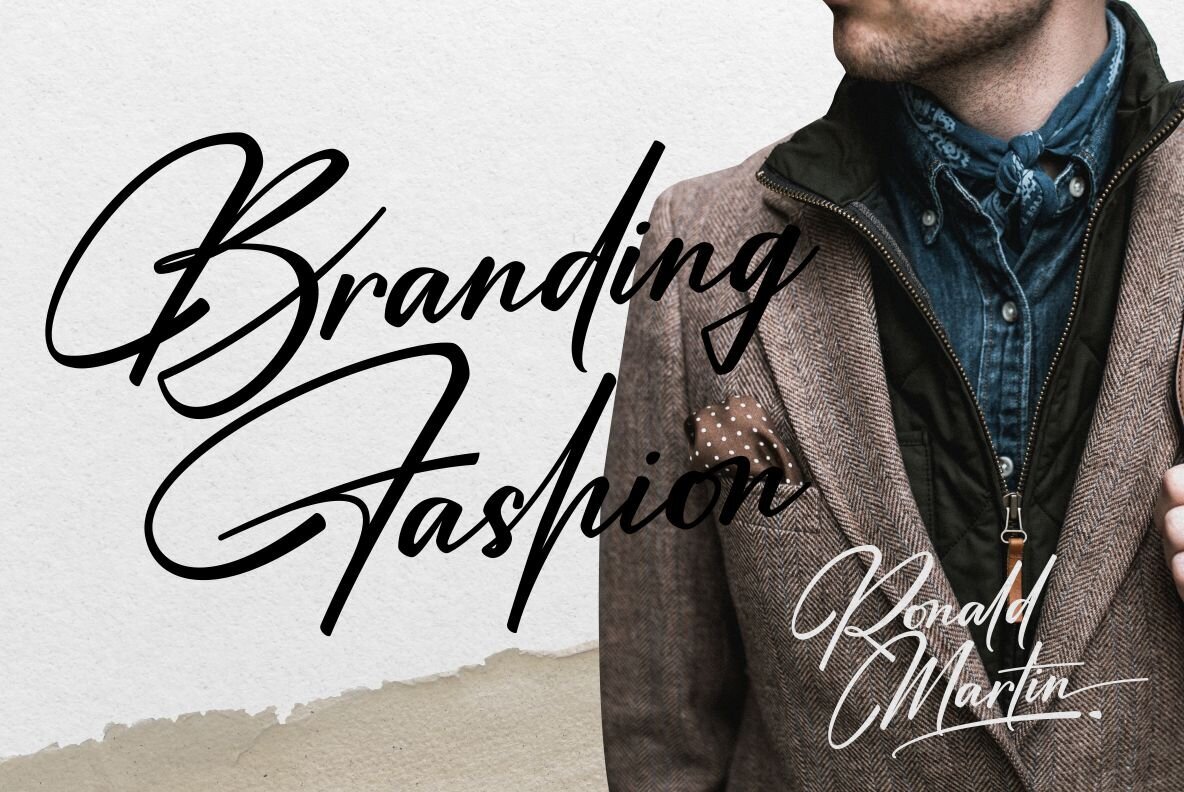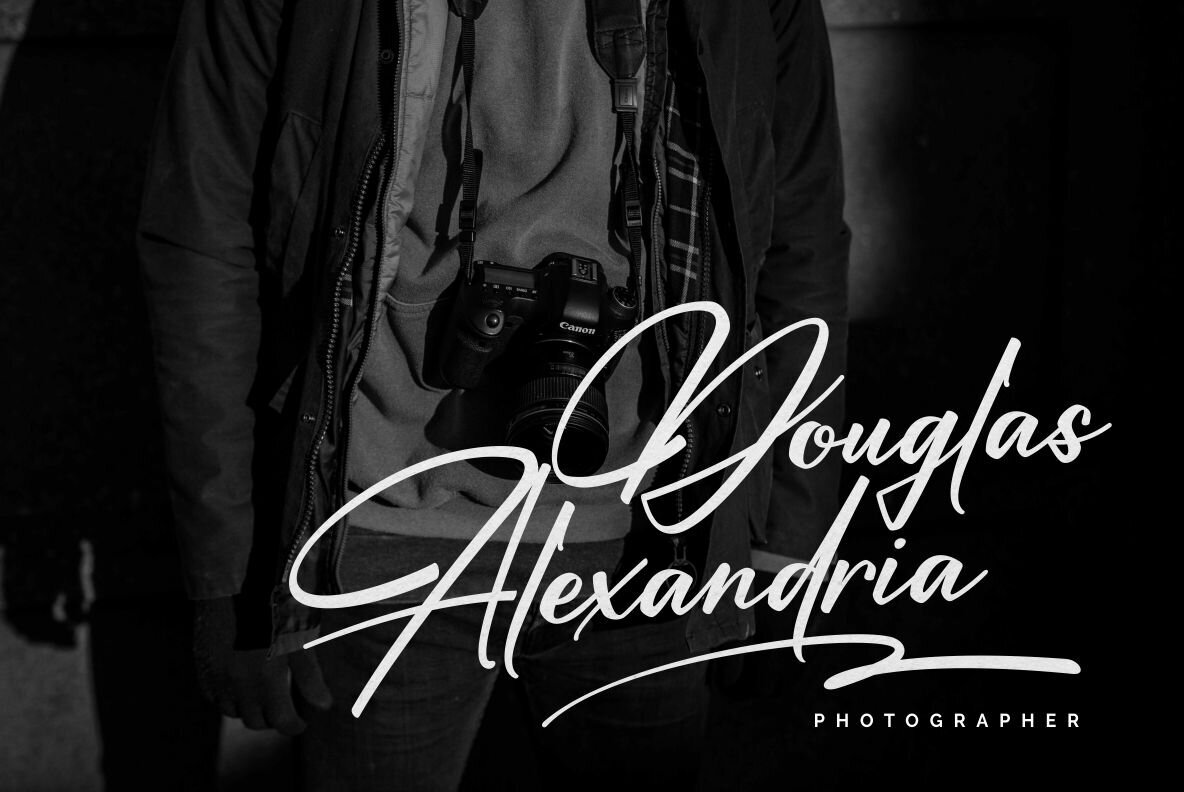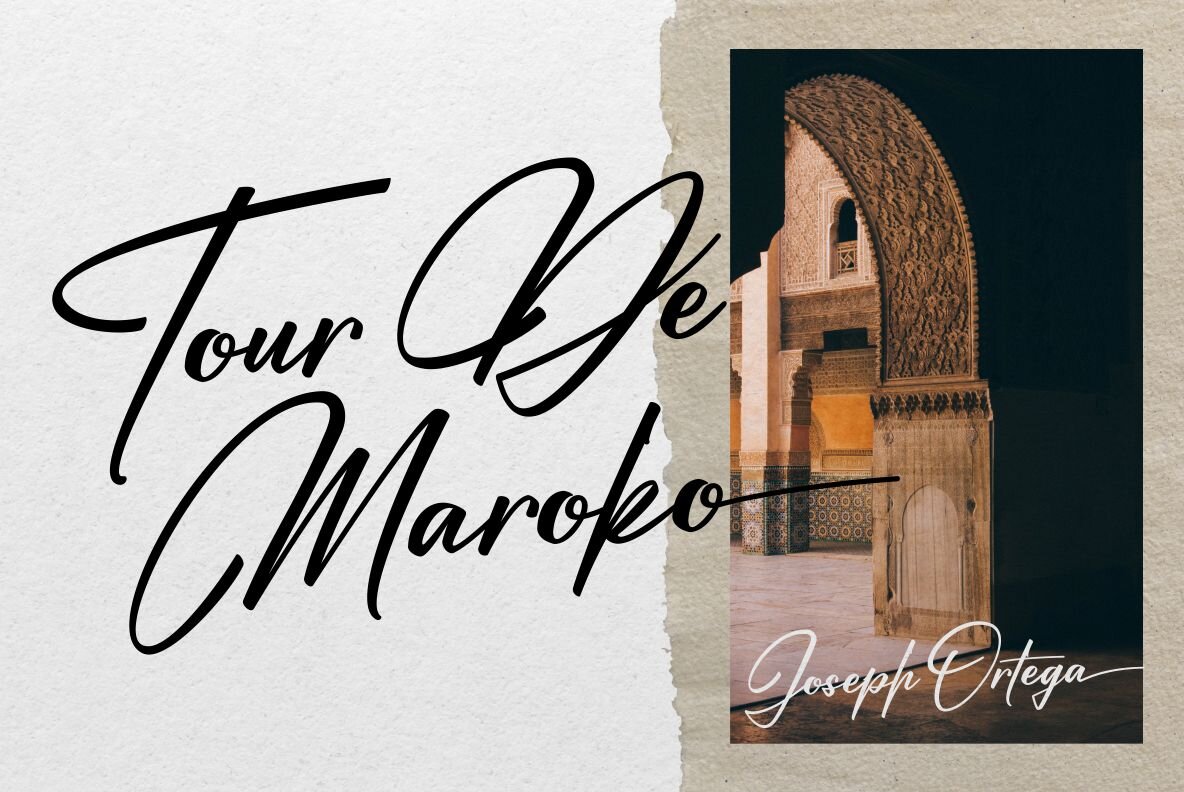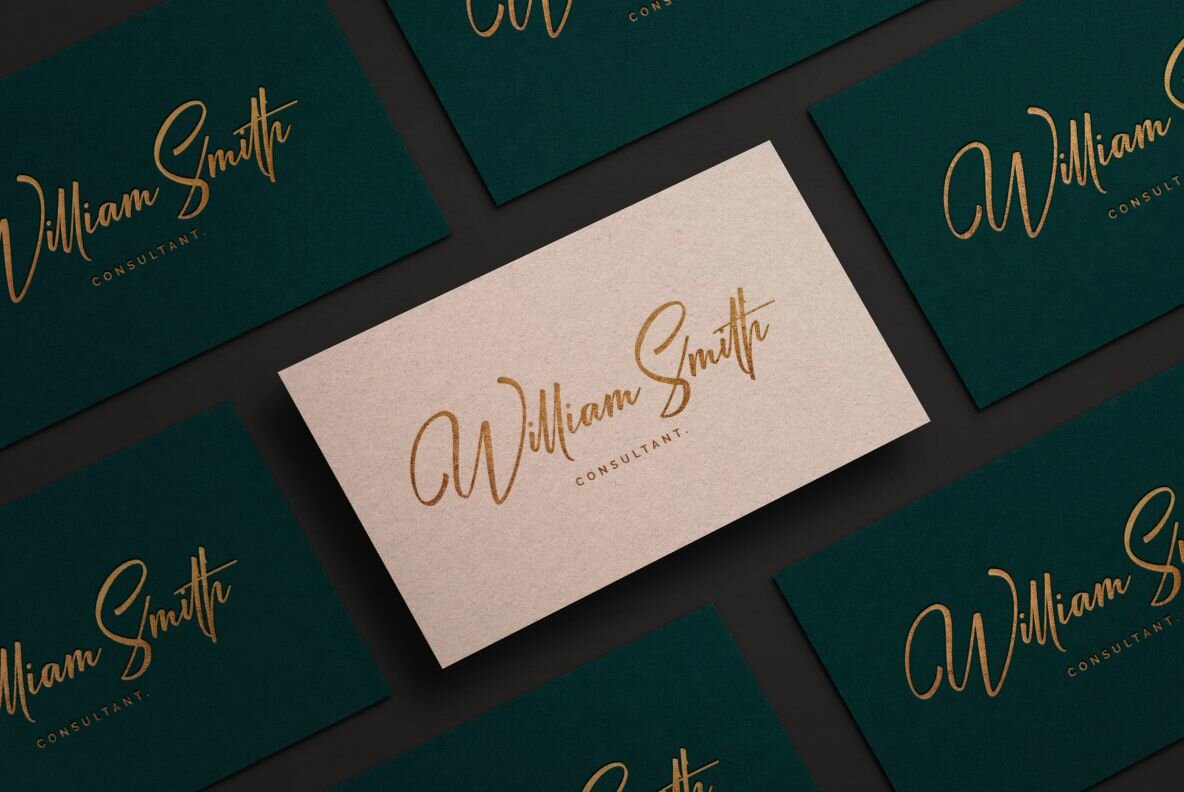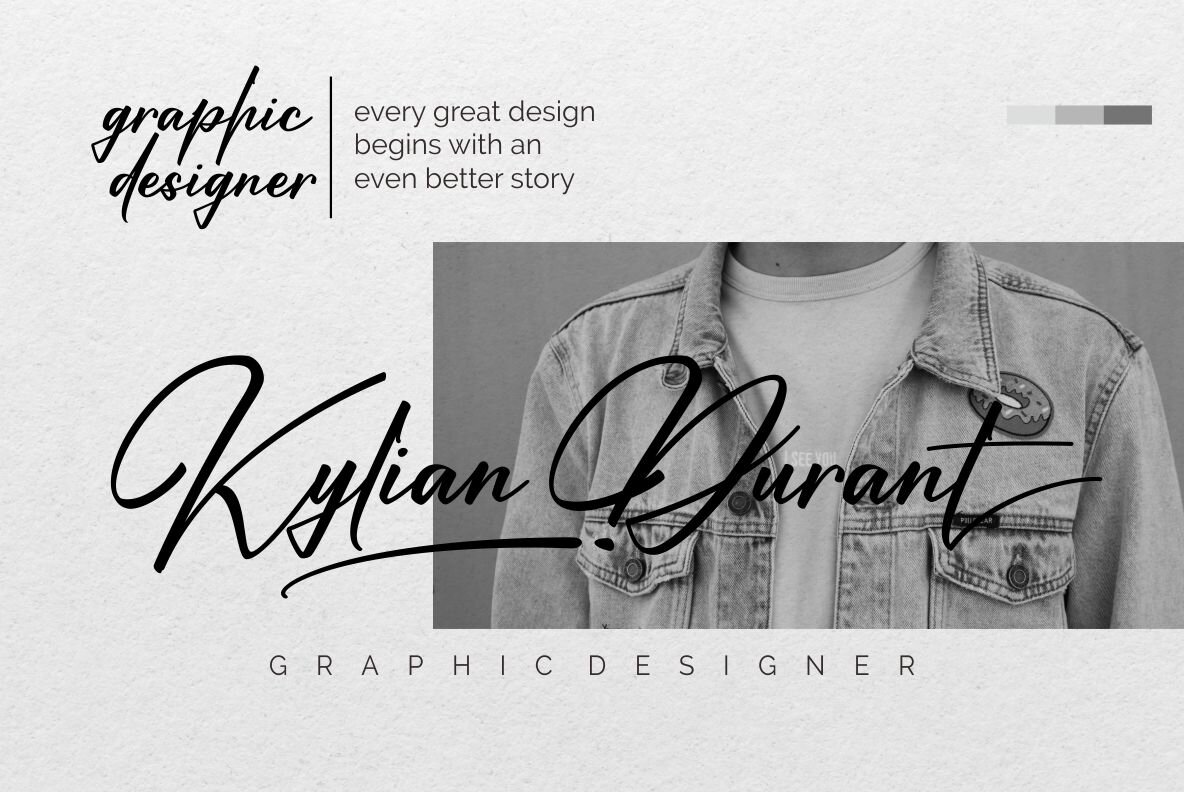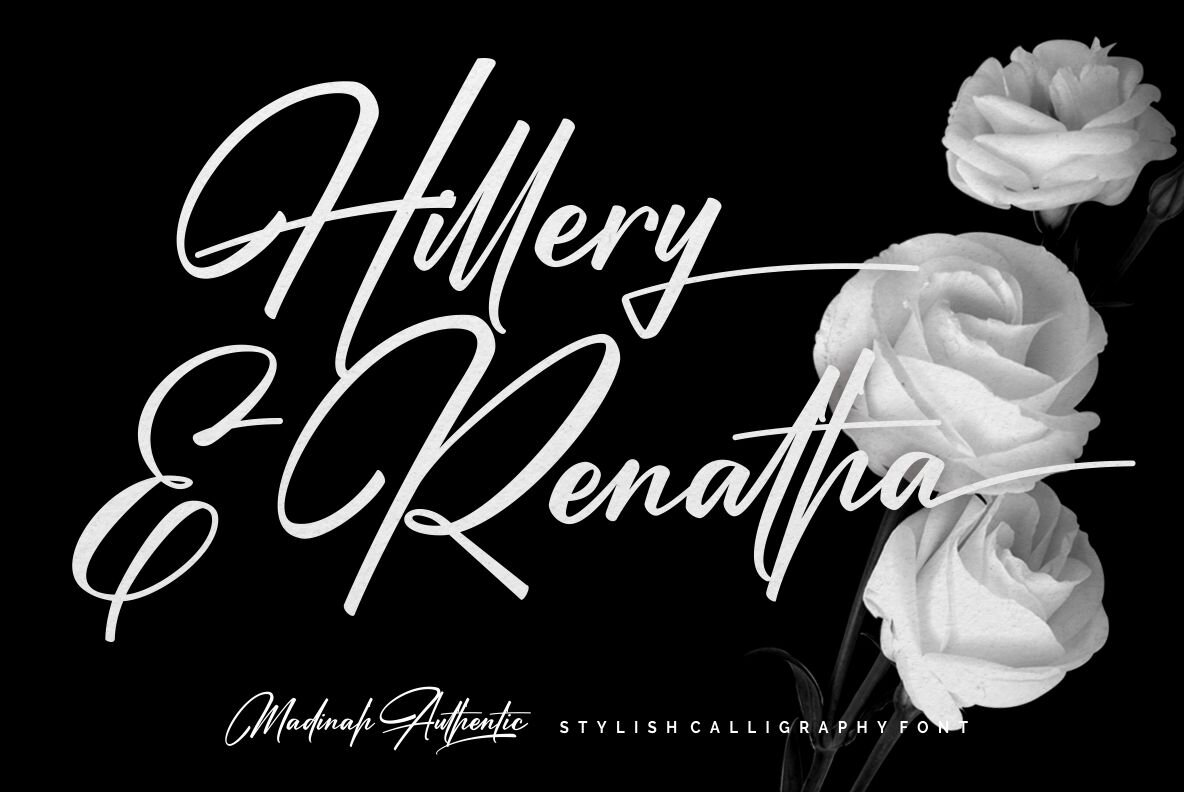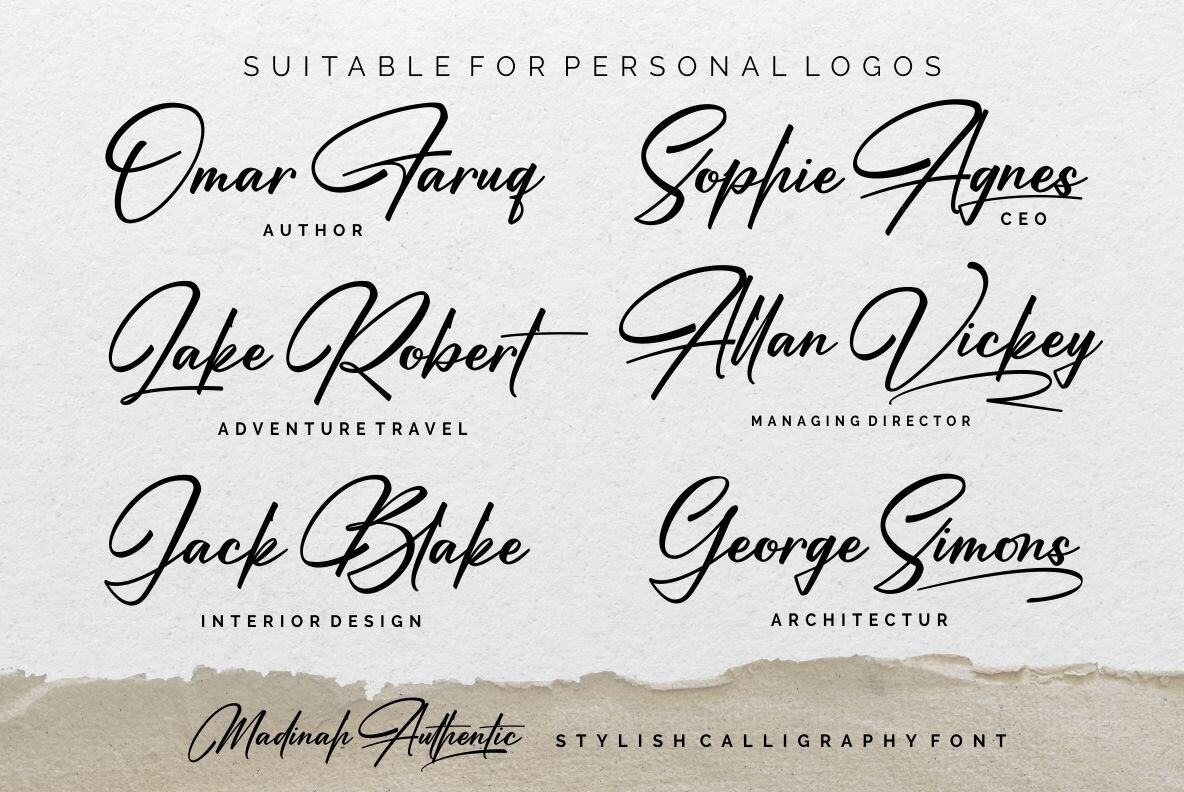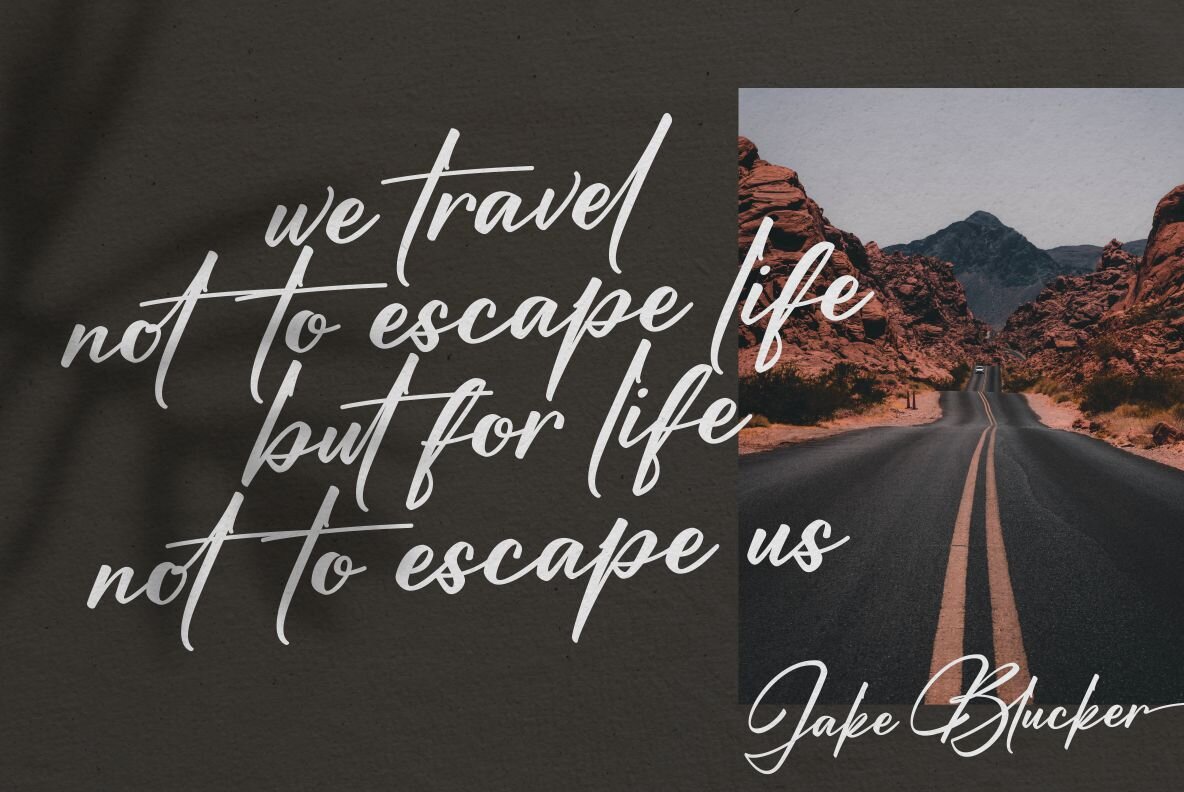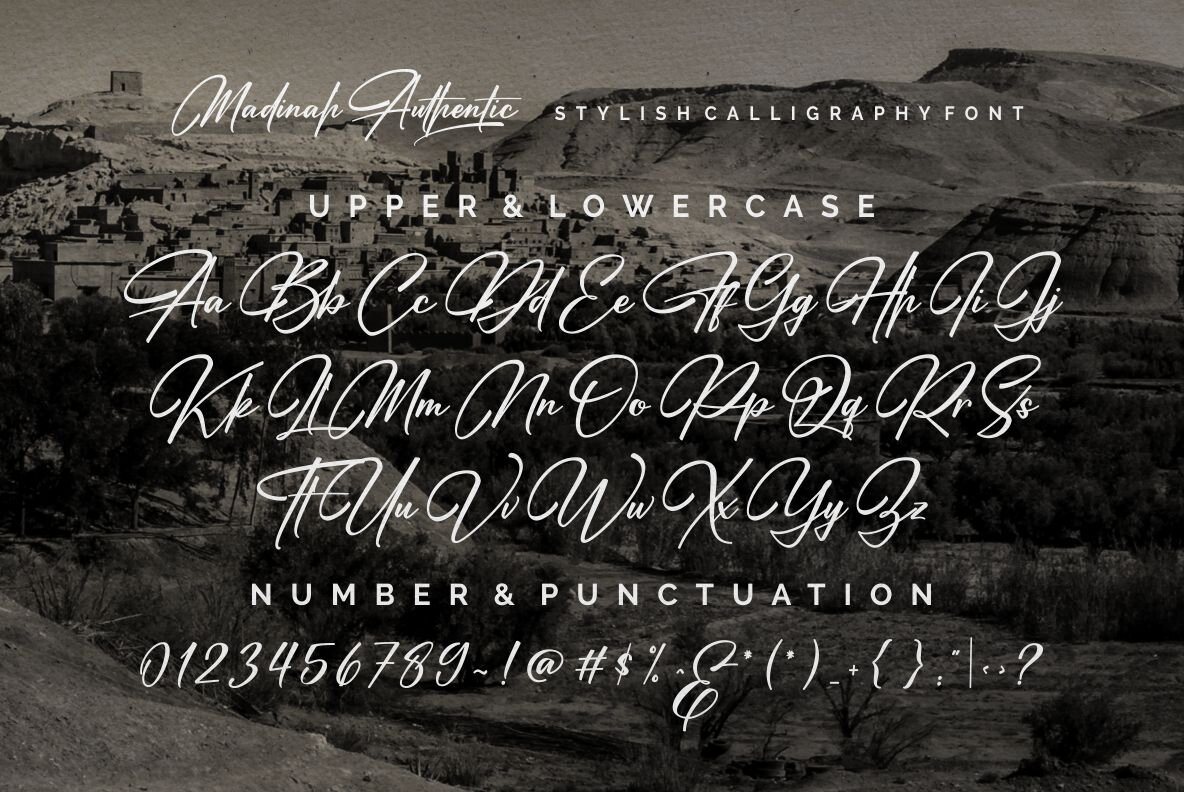
Madinah Authentic Font
Madinah Authentic Regular
Madinah Authentic by Ergibi Studio brings sophistication and style to any project with its elegant design. This font captures the essence of luxury, making it an excellent choice for projects that demand a refined touch. Whether you're designing logos, wedding invitations, branding materials, or social media posts, Madinah Authentic will infuse your work with a sense of distinguished elegance. Its versatility extends to advertisements, product packaging, labels, and stationery, embodying the taste of fine handwriting skills. Features:Madinah Authentic: A Classy Handwritten Typeface